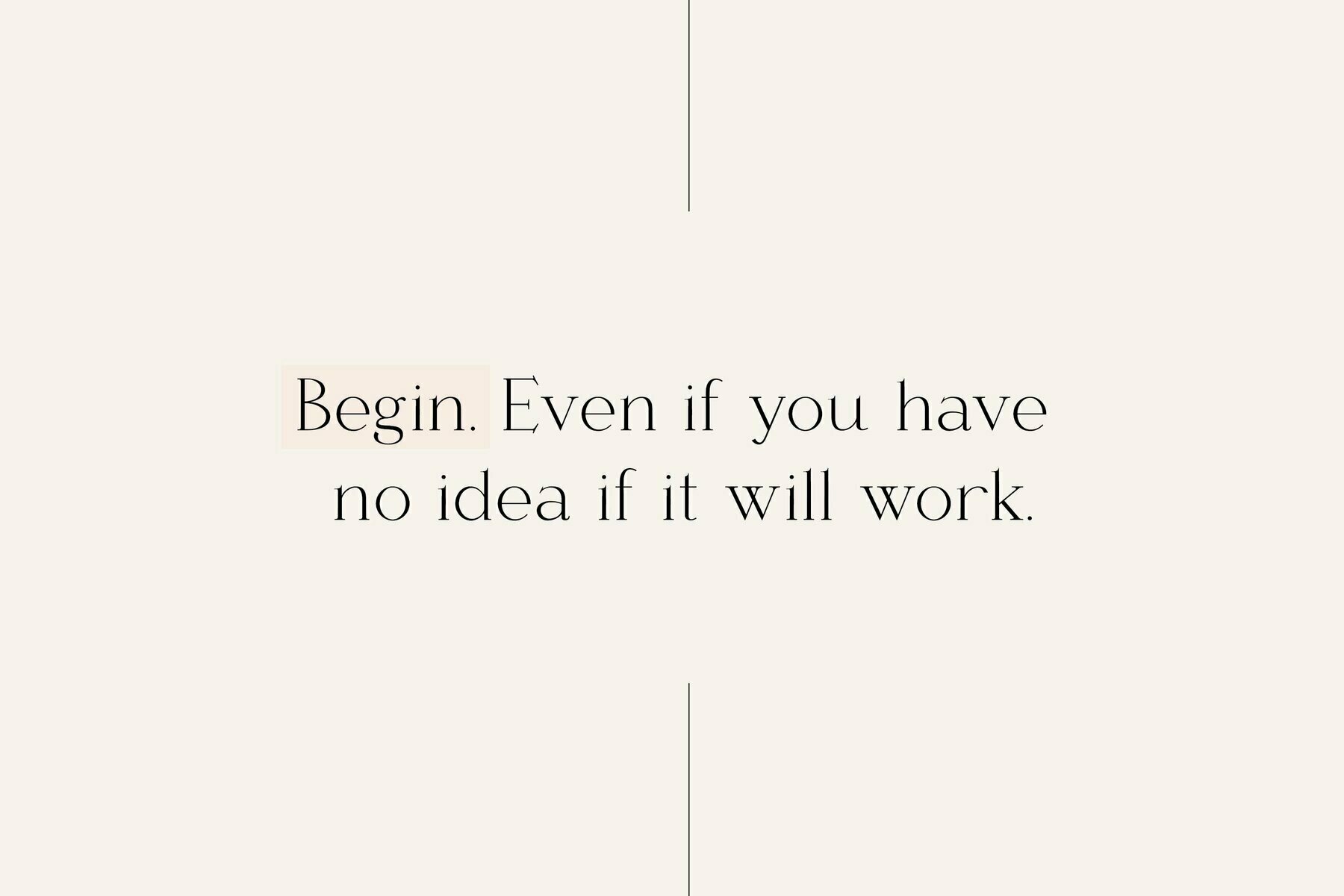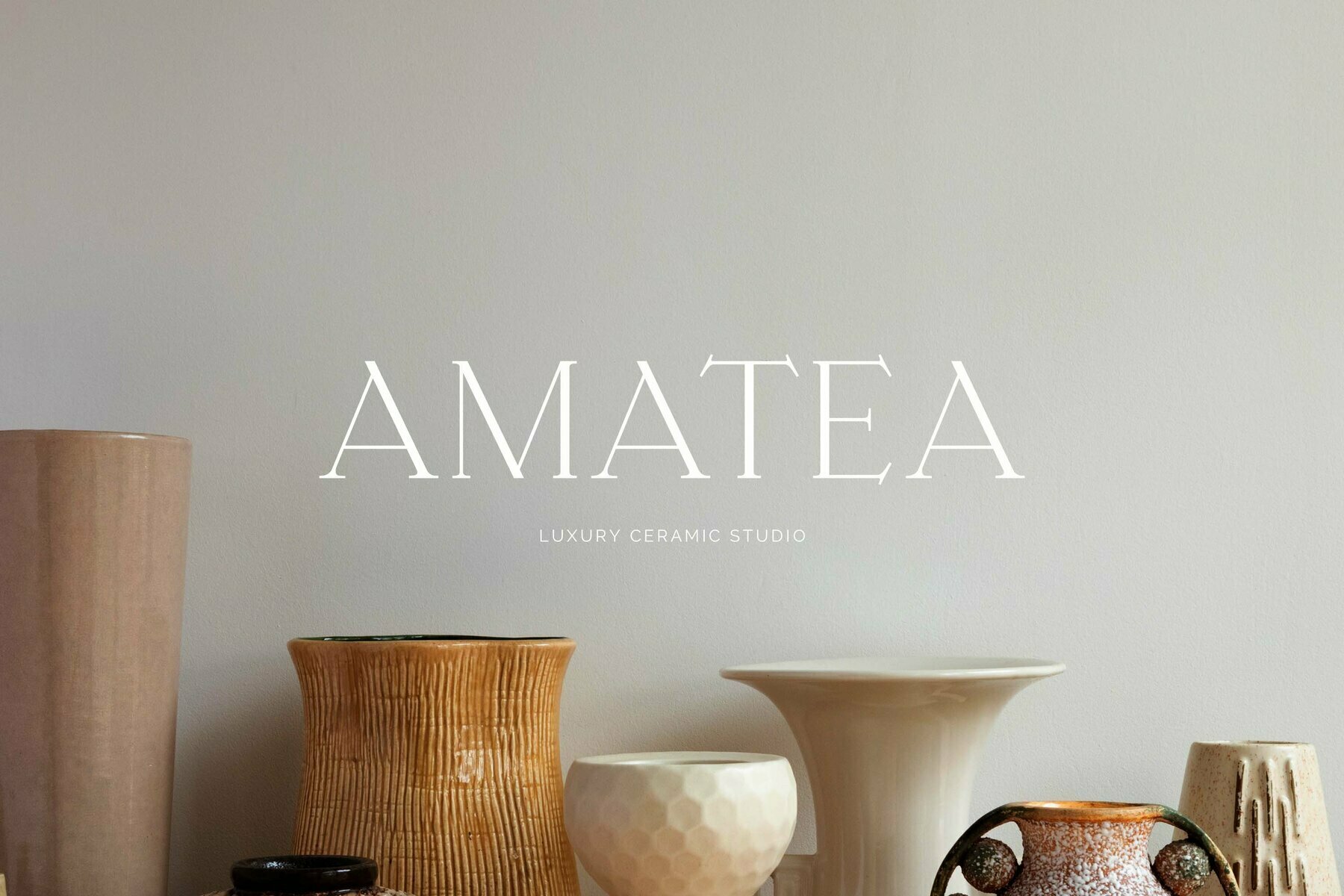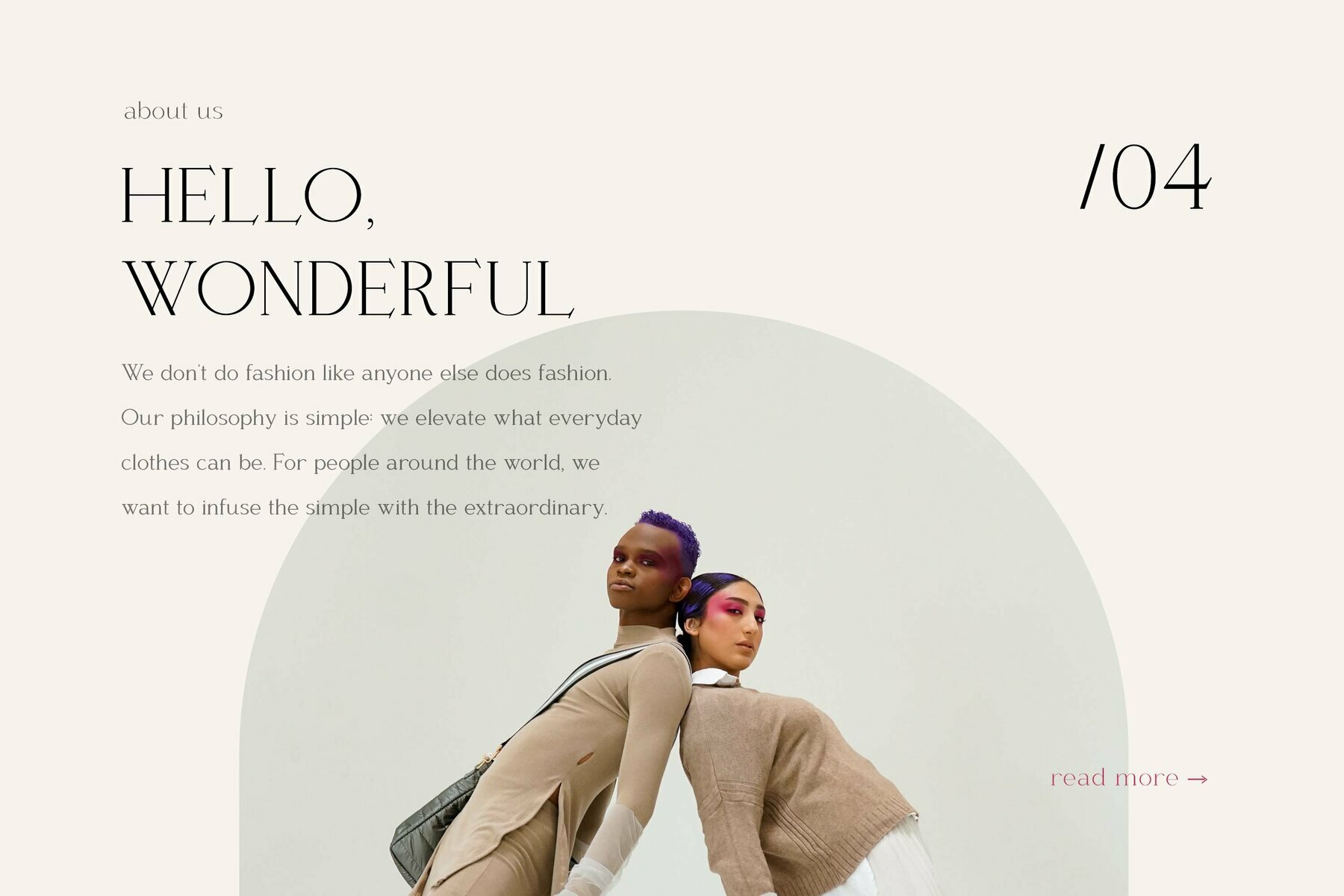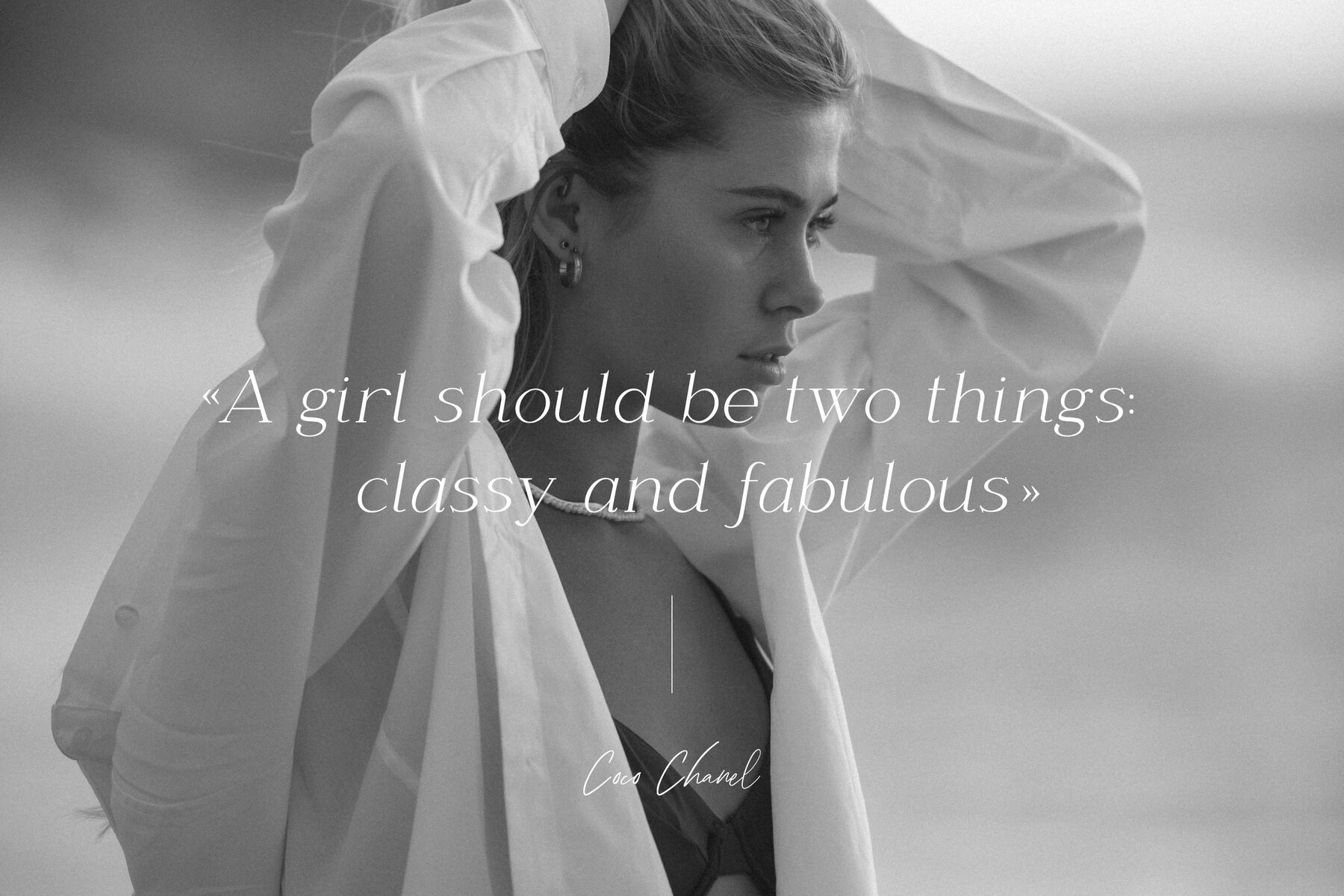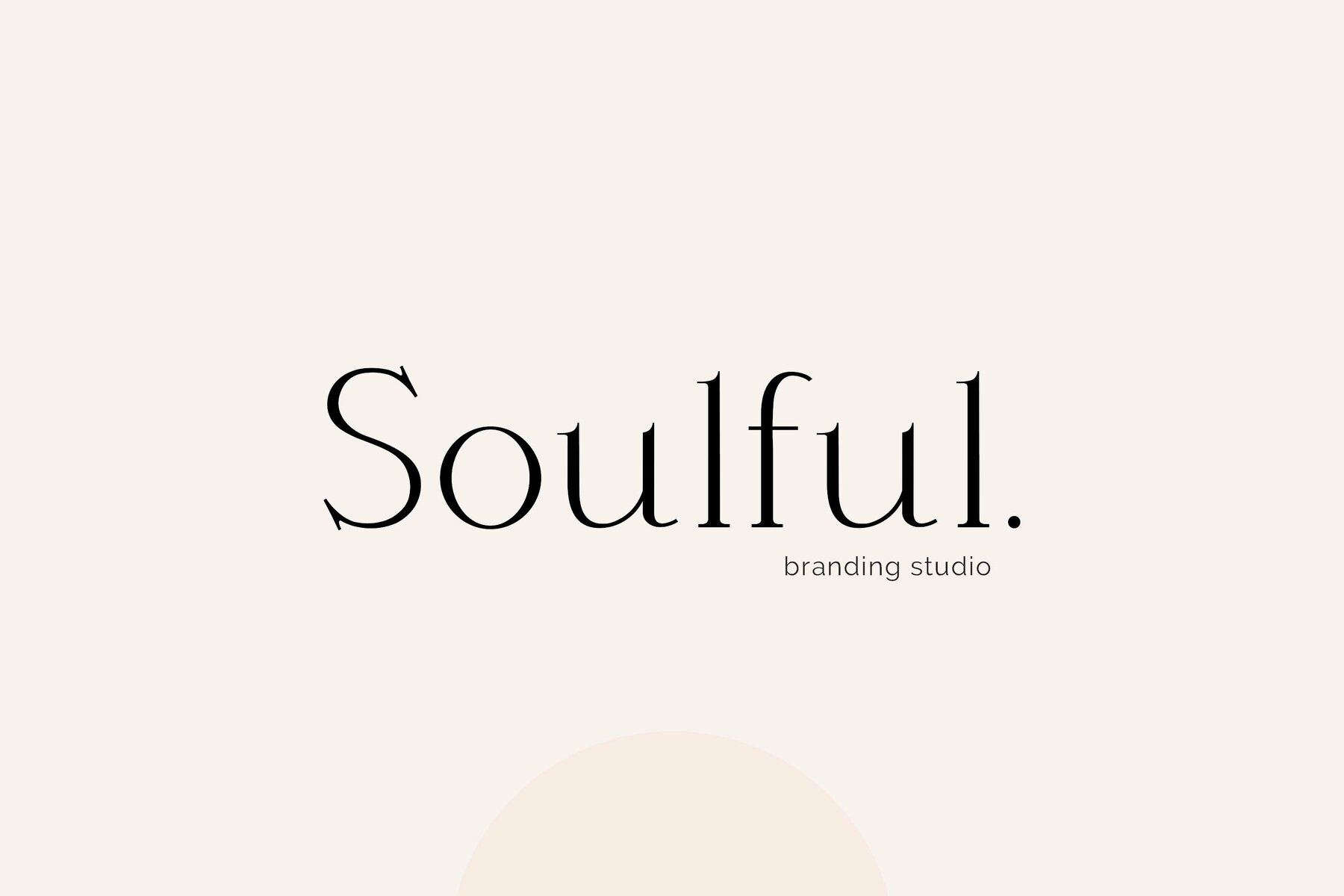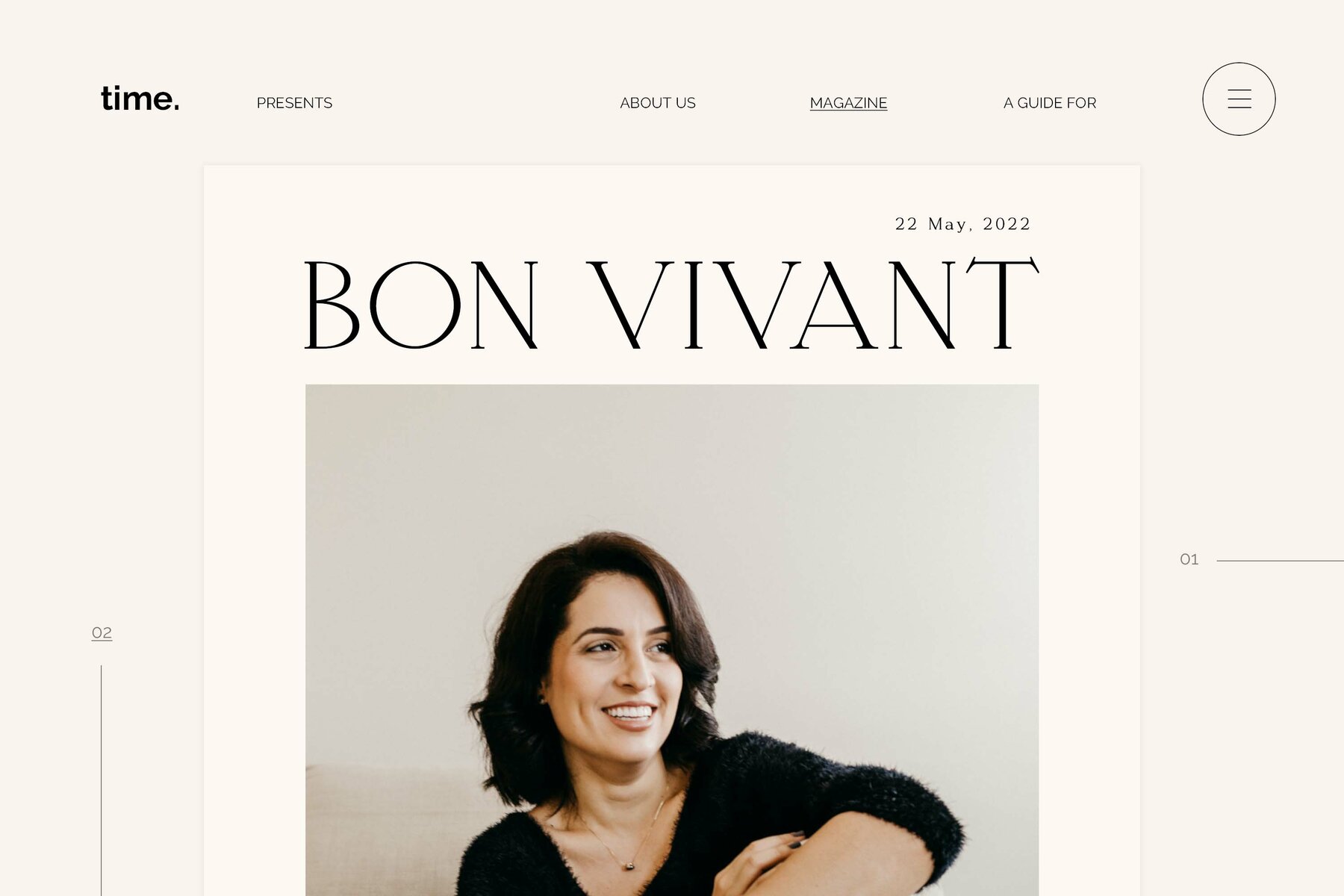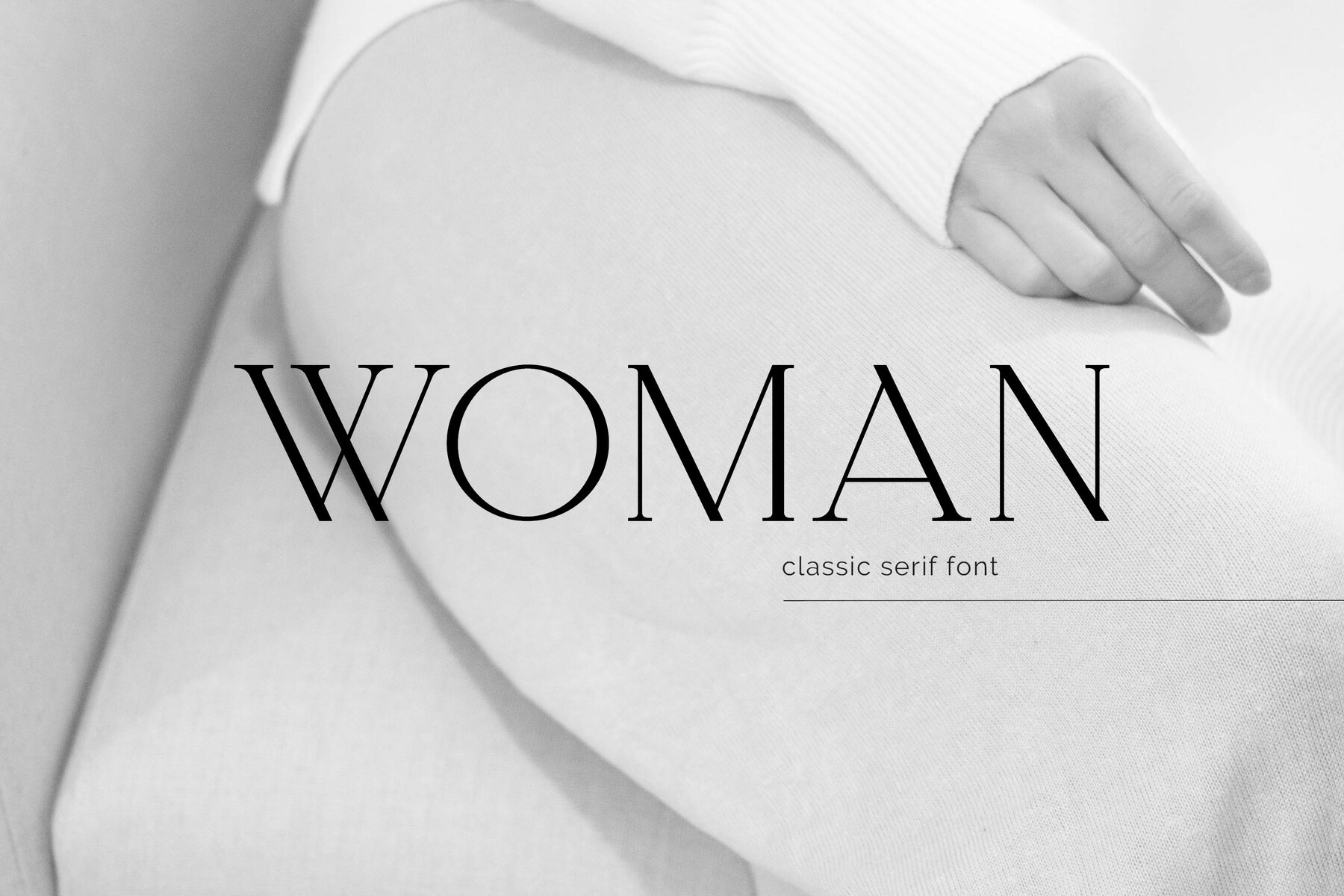
Woman Font
Embrace the elegance of the Woman Serif Font, where classic design meets contemporary flair. This versatile typeface offers a harmonious blend of formality and charm, making it an excellent choice for a wide range of graphic design projects. Its clean lines and sophisticated stroke bring your text to life, whether in print or digital applications. Let the Woman Serif Font elevate your design with its timeless beauty and superior readability. Perfect for branding, editorial layouts, and beyond.Woman Serif Font: A Classic Yet Modern Typeface